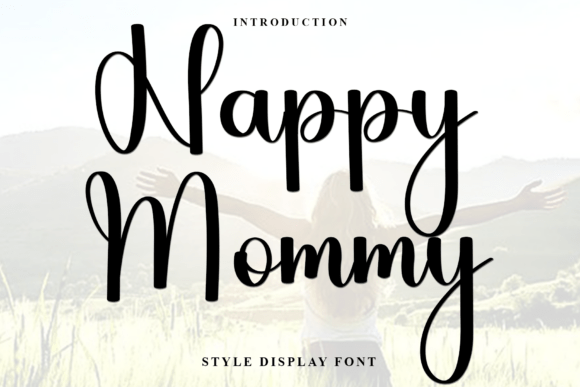
The Joy of Creating with Happy Mommy Font
Have you ever found yourself lost in a creative moment, surrounded by paint, glue, and colorful papers? The world fades away, and all that’s left is the excitement of bringing your imagination to life. For many of us, this is where the magic happens, and our creative juices start flowing. But what if you could take your creativity to the next level with a beautiful font that speaks to your soul?
Enter the Happy Mommy Font, a stunning and versatile typeface designed to add a touch of warmth and personality to your designs. This gorgeous font is perfect for crafty projects, artistic endeavors, and even everyday communication. Its soft strokes and unique character make it an ideal choice for designers looking to add a personal touch to their work.
Happy Mommy Font Key Features
- Font Family: Happy Mommy Font is a unique, handwritten font designed specifically for mothers and family-related content.
- Unique Characteristics: The font features a playful, cursive style with exaggerated letterforms, making it perfect for adding a personal touch to family-related content.
Happy Mommy Font Review
I recently had the chance to work with the “Happy Mommy Font”, and I have to say, it’s a unique choice for a font. ✨ One of the things that I liked about it is the playful, hand-drawn feel. It’s perfect for creating a friendly and approachable tone in your designs.
Another thing that stands out about this font is its versatility. ✨ It can be used in a variety of projects, from children’s books to social media graphics. It’s also great for creating attention-grabbing headings and titles.
However, I do have some concerns about the limitations of this font. ⚠️ For one, it may not be suitable for formal or professional projects. The handwriting-like feel can come across as unprofessional in some contexts.
Additionally, the font may not be as legible in smaller sizes or at a distance. This can make it difficult to use in certain applications, such as signage or presentations.
Overall, I think the “Happy Mommy Font” is a fun and creative choice for designers. While it may have some limitations, it’s perfect for projects where a playful and approachable tone is desired.
- Playful, hand-drawn feel
- Versatile and suitable for a variety of projects
- Perfect for creating attention-grabbing headings and titles
- May not be suitable for formal or professional projects
- May not be legible in smaller sizes or at a distance
Tips for Getting the Most Out of Happy Mommy Font
Here are some tips for getting the most out of Happy Mommy Font:
- Use it for playful and whimsical designs.
- Pair it with bright and bold colors for maximum impact.
Happy Mommy Font is perfect for:
- Family-themed social media graphics.
- Playful blog posts and articles.